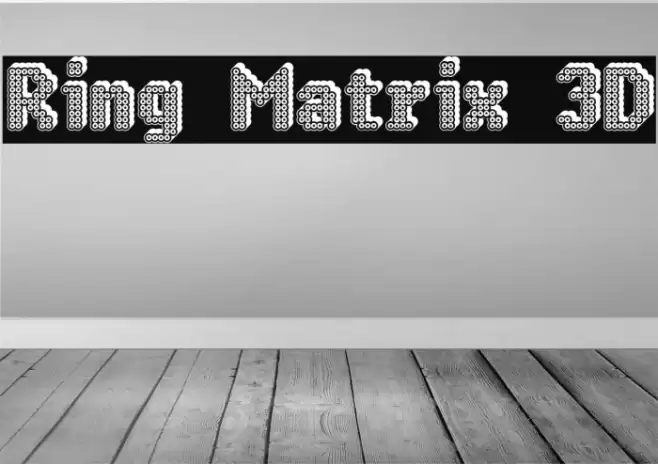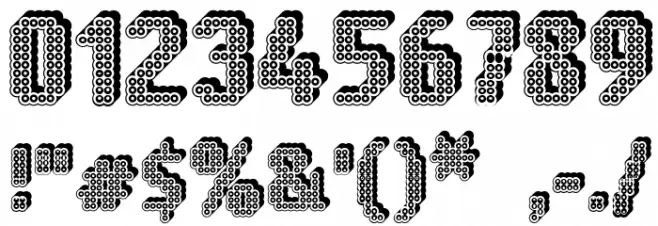
Ring Matrix 3D Font
Ring Matrix 3D Description
This font features a unique 3D effect created by a pattern of interconnected rings, giving it a bold and eye-catching appearance. Each character is composed of multiple circular elements, creating a textured and layered look. The design is consistent across uppercase, lowercase, numbers, and special characters, maintaining a cohesive style. The font's playful and modern aesthetic makes it stand out, while the geometric structure ensures readability. Its distinctive appearance is ideal for projects that require a strong visual impact.
A bold, 3D ring-patterned font with a modern and playful style from Uncategorized fonts.
- Proposed Projects: Ideal for posters, logos, video game graphics, and any project needing a striking visual element.